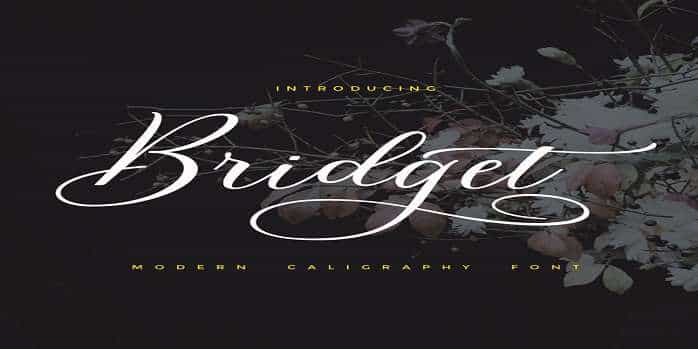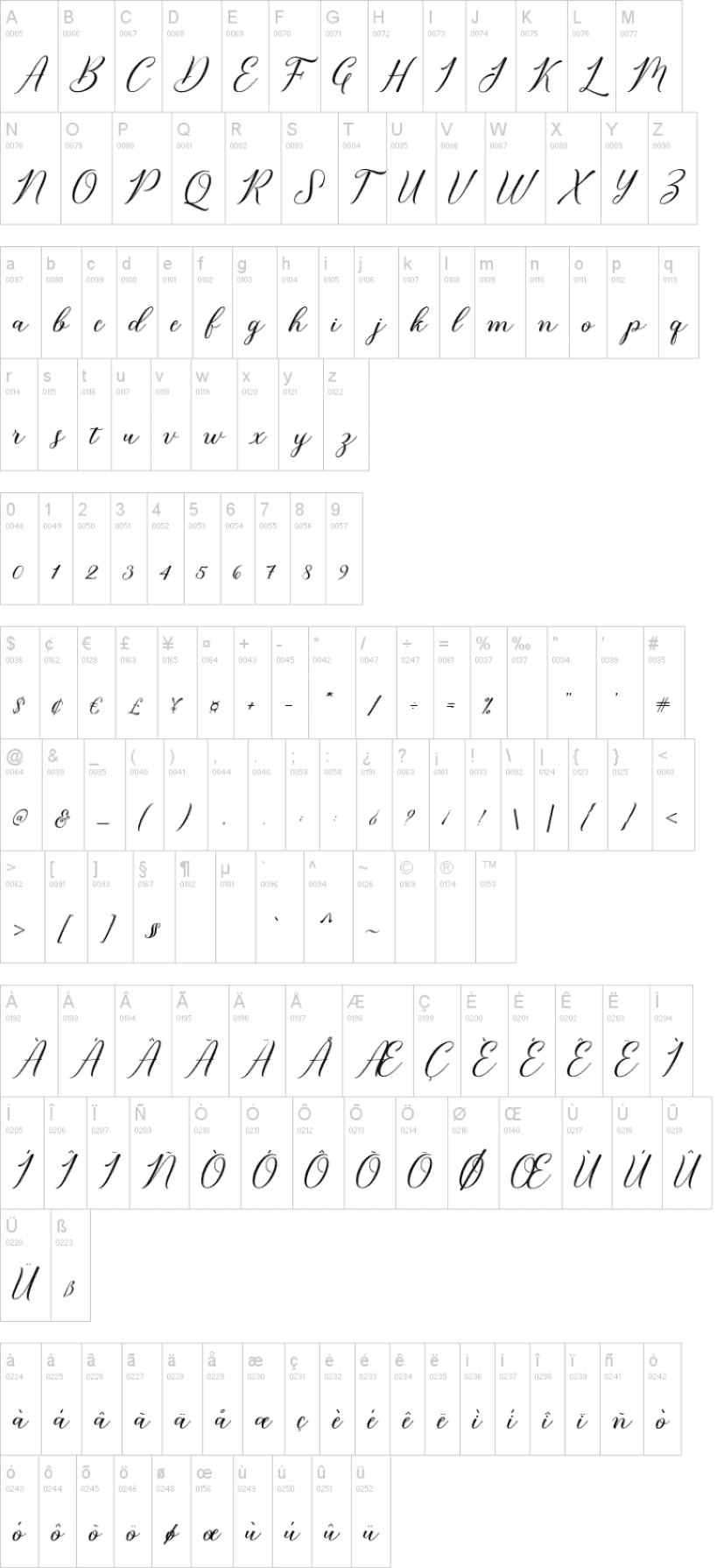
Bridget Script is an amazing Calligraphy font developed by Cooldesignlab which is available for free downloading as well as for personal usage. The free version offers all the English alphabet both in lowercase and uppercase and only a few special symbols.